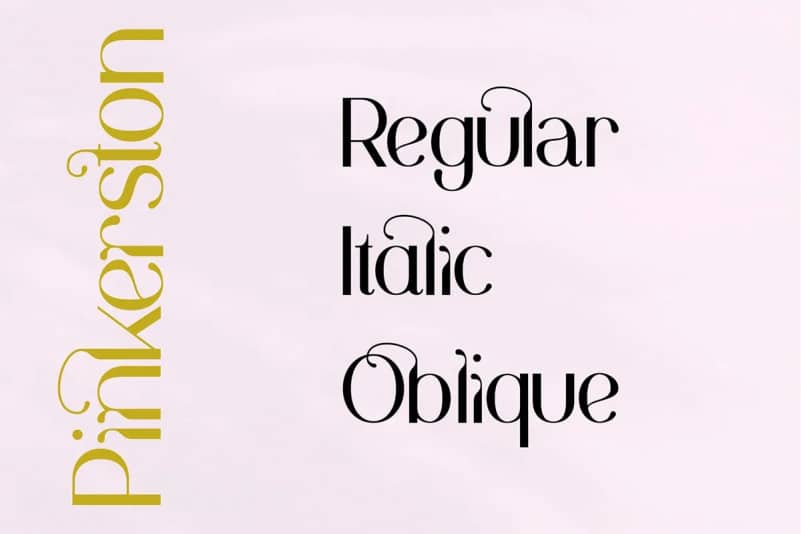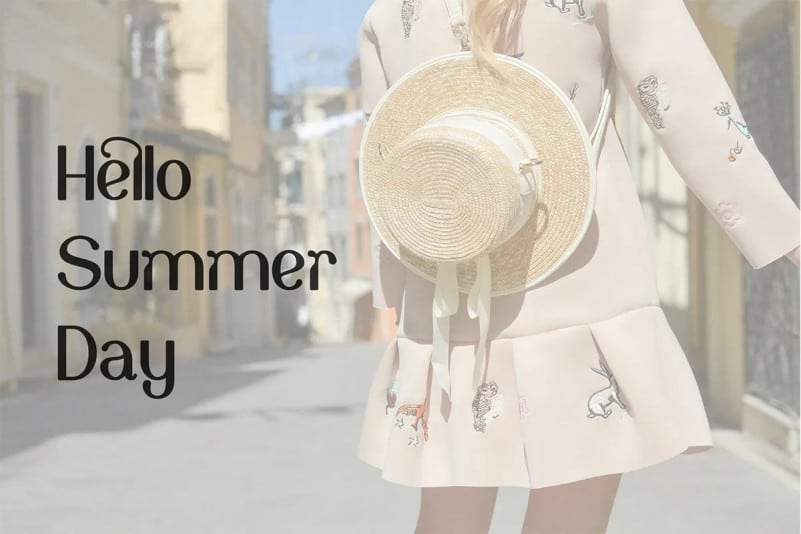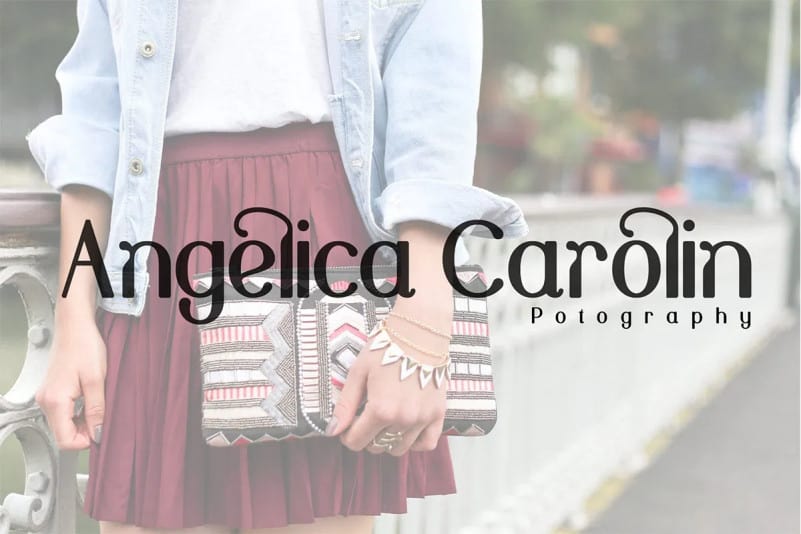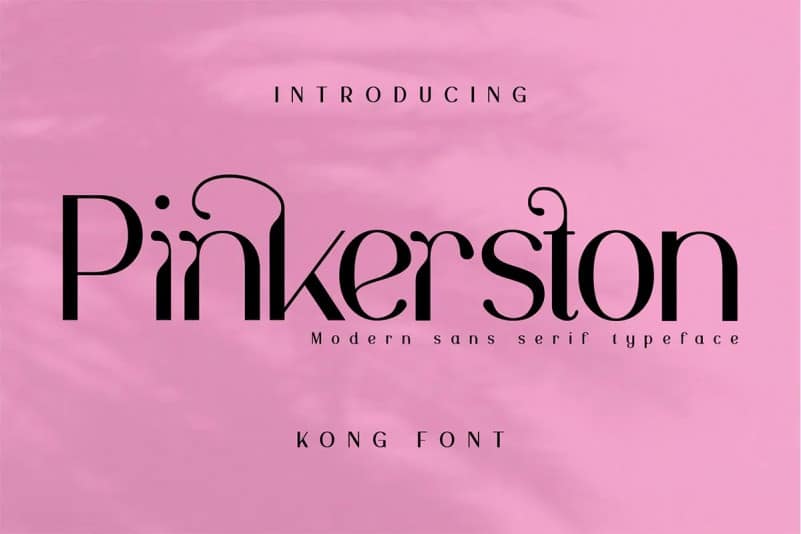
Pinkerston Sans Serif Font
Pinkerston Sans Serif Font is a Bold elegant modern vintage serif style with upper and lowercase feel nice balanced. Made from font designer named fontkong. Its wide range of uppercase and lowercase alternates allow versatile design options and works perfectly for headlines, logos, posters, packaging, T-shirts, postcards and much more.